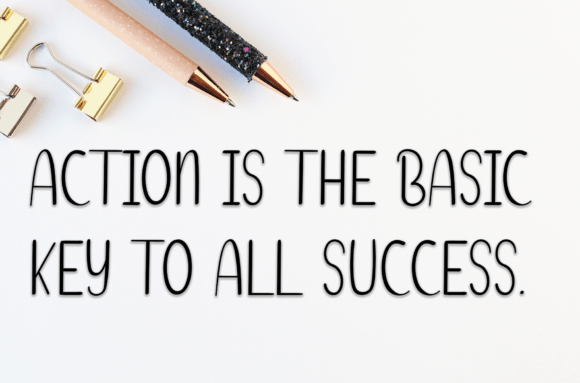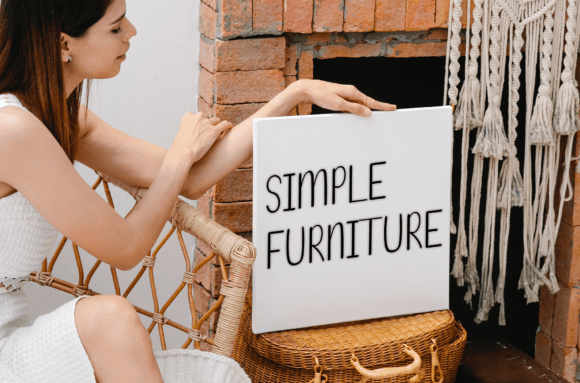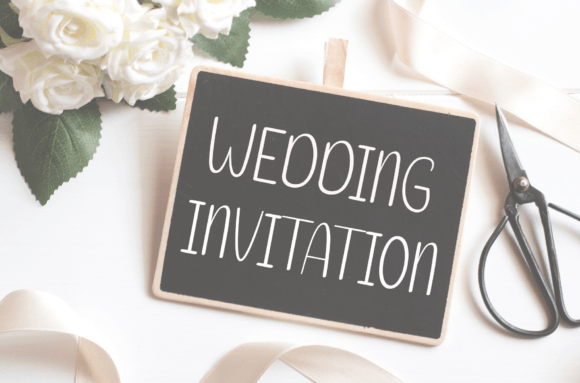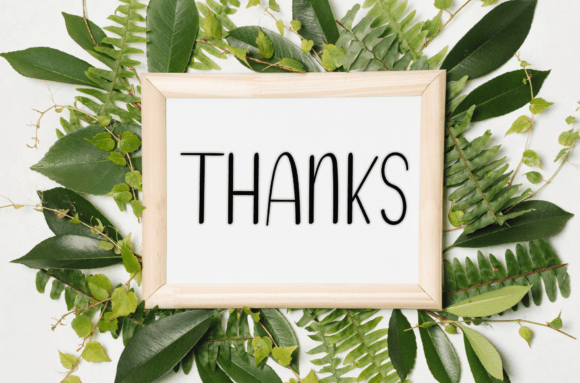
Introducing Farmhouse Font: A Delicate Handwritten Style for Unique Designs
Are you a designer, crafter, or DIY enthusiast looking for a font that adds a touch of rustic charm to your projects? Look no further than Farmhouse Font, a beautiful and delicate handwritten font carefully crafted for a cool and unique design. In this article, we’ll explore the features and benefits of Farmhouse Font, and how it can be used to elevate your creative projects.
Farmhouse Font is a carefully designed handwritten font that exudes a sense of rustic elegance and charm. With its delicate lines and curves, this font is perfect for creating unique and eye-catching designs that stand out from the crowd. Whether you’re looking to add a personal touch to your invitations, labels, or titles, Farmhouse Font is the perfect choice.
Features of Farmhouse Font
So, what makes Farmhouse Font so special? Here are just a few of its key features:
- Delicate Handwritten Style: Farmhouse Font boasts a beautiful, handwritten style that’s perfect for creating unique and personalized designs.
- Cool and Unique Design: With its rustic charm and elegant lines, Farmhouse Font is sure to add a touch of sophistication to any design.
- Versatile: This font can be used for a wide range of projects, from writing letters and invitations to labeling food products and creating titles.
- Easily Readable: Despite its delicate nature, Farmhouse Font is surprisingly easy to read, making it perfect for both digital and print designs.
Uses for Farmhouse Font
So, how can you use Farmhouse Font in your designs? Here are just a few ideas to get you started:
- Invitations: Add a touch of rustic charm to your wedding invitations, birthday party invites, or baby shower announcements.
- Food Products: Use Farmhouse Font to label your homemade food products, such as jams, honey, and baked goods.
- Stationery: Create beautiful and unique stationery sets, complete with letters, notecards, and journals.
- Titles and Headings: Add a touch of elegance to your titles and headings with Farmhouse Font, perfect for blog posts, articles, and social media graphics.
- Crafting and DIY Projects: Use Farmhouse Font to add a personal touch to your crafting and DIY projects, such as scrapbooking, card making, and home decor.
Here are a few tips for getting the most out of Farmhouse Font:
- Pair with Other Fonts: Experiment with pairing Farmhouse Font with other fonts to create a unique and eye-catching design.
- Use in Combination with Images: Combine Farmhouse Font with beautiful images or illustrations to create a stunning visual effect.
- Keep it Simple: Don’t be afraid to keep things simple and elegant – Farmhouse Font is perfect for minimalist designs.